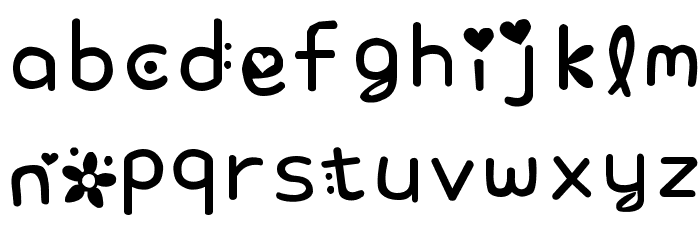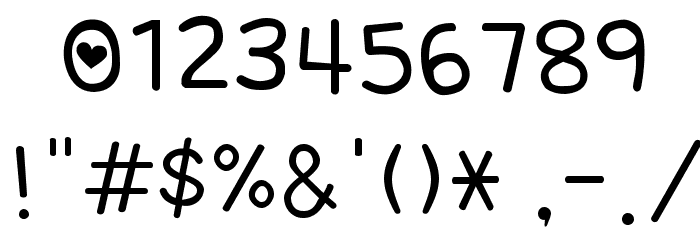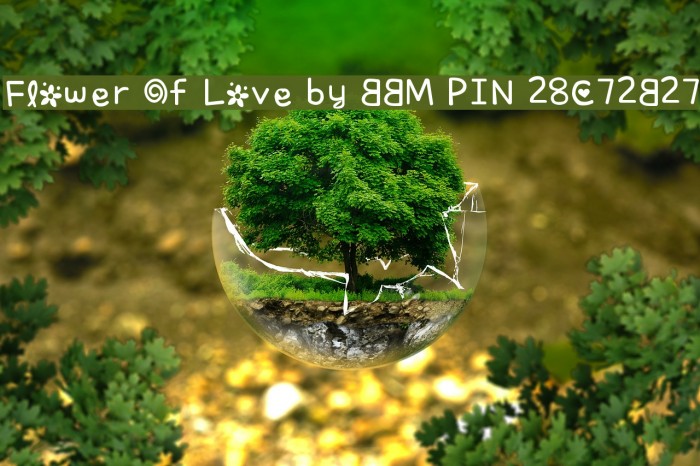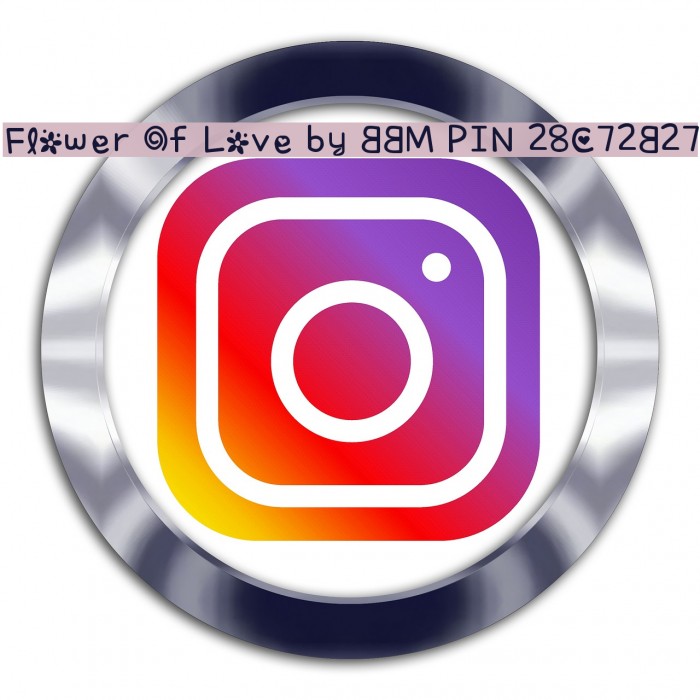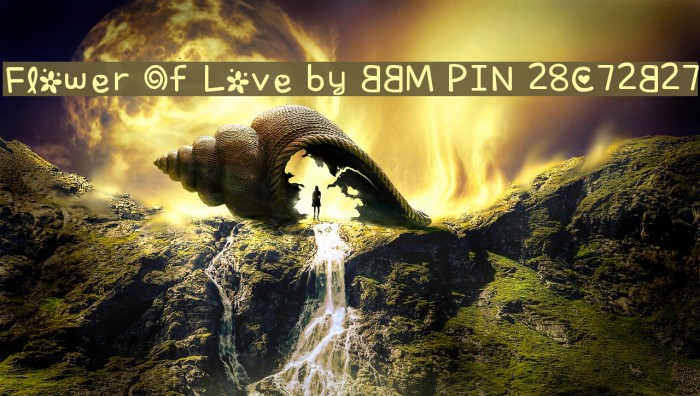
Flower Of Love by BBM PIN 28C72B27 Font
This playful and whimsical font features a unique blend of rounded and heart-shaped elements, creating a charming and friendly appearance. The letters are bold and slightly irregular, adding to the casual and fun vibe. The uppercase letters incorporate hearts and swirls, while the lowercase letters maintain a consistent style with occasional decorative touches. The numbers and special characters follow the same playful theme, making this font ideal for projects that require a touch of creativity and warmth.
A playful, heart-themed font with rounded, whimsical characters.
- Proposed Projects: Perfect for children's books, greeting cards, playful branding, and Valentine's Day promotions.
- Use Case: Headlines, Logos, Invitations